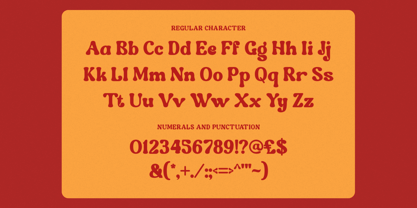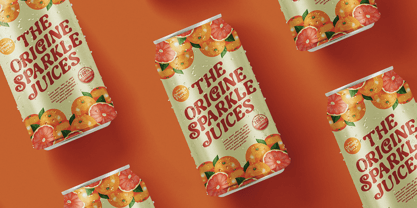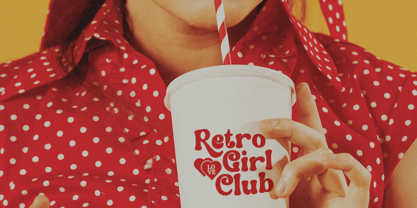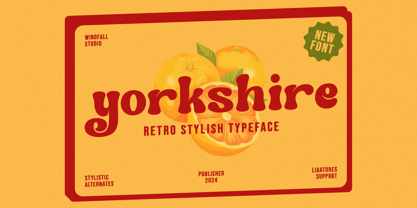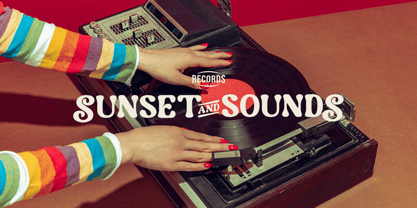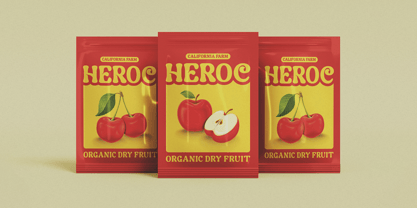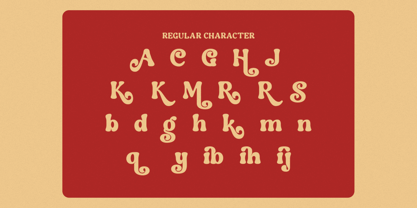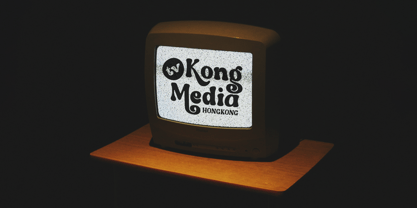
Yorkshire
by Windfall Studio
The Yorkshire Font Family was designed by Anggia Putri Premitasari and published by Windfall Studio. Yorkshire contains 1 styles.
Yorkshire - Retro Rounded
Yorkshire is a retro rounded font that captures the essence of vintage typography with a modern twist.
Its rounded edges and playful curves evoke a sense of nostalgia while maintaining a contemporary appeal. Perfect for adding a retro touch to your designs, Krone brings a sense of warmth and charm to any project.